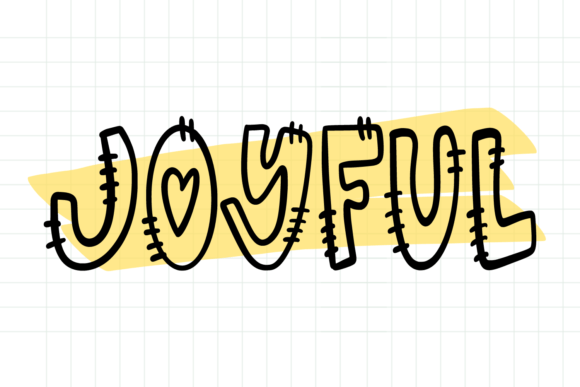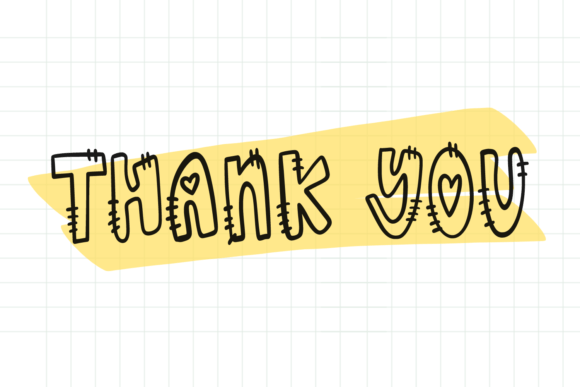
Wow is a lovely and cute outline font. It is suitable for traditional media and web design. Great for crafters and graphic artists alike. Add it to your most creative ideas and notice how it makes them come alive. It looks stunning on thank you cards, quotes, greeting cards, logos, business cards, and every other design which needs a joyful touch.